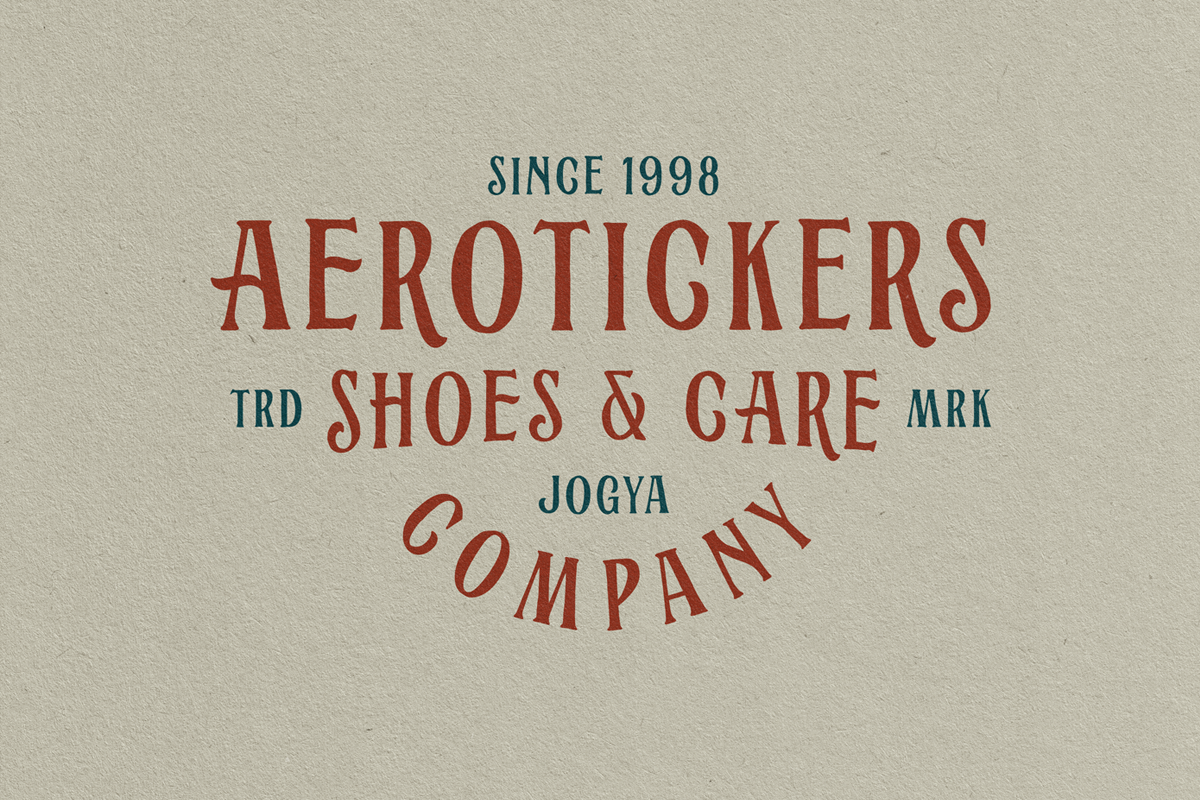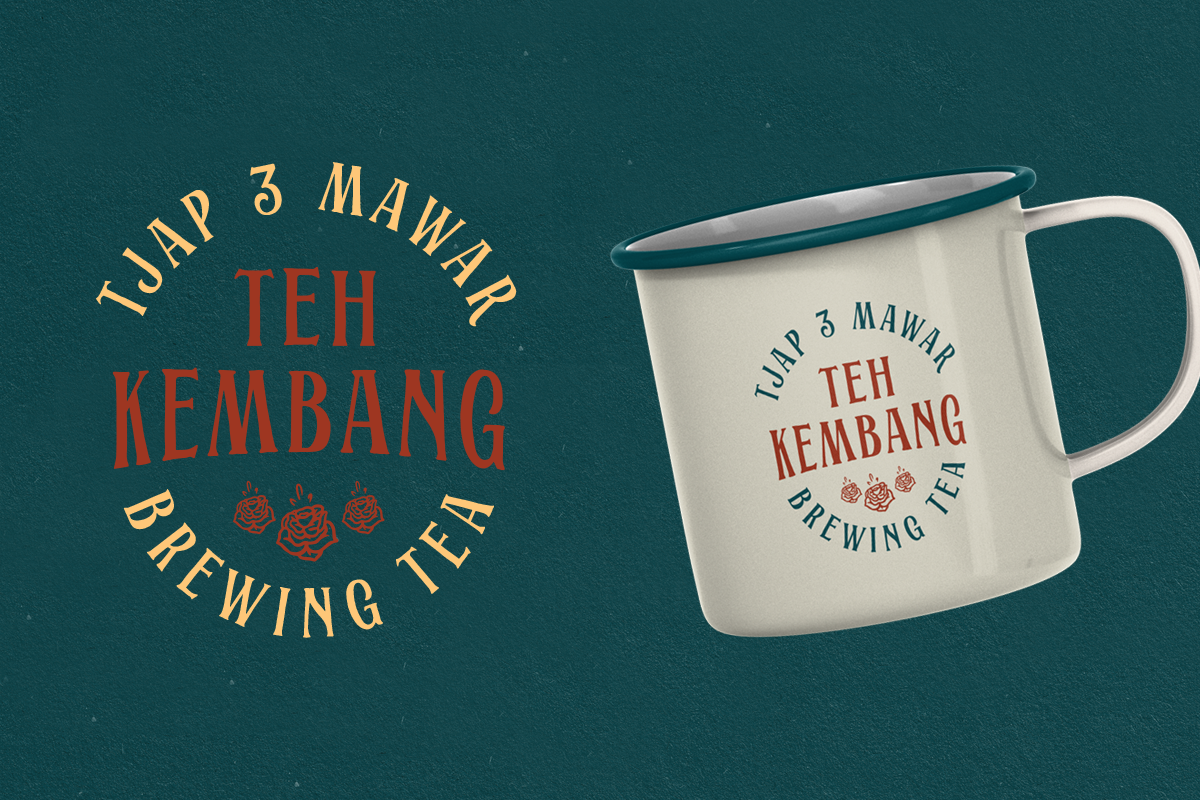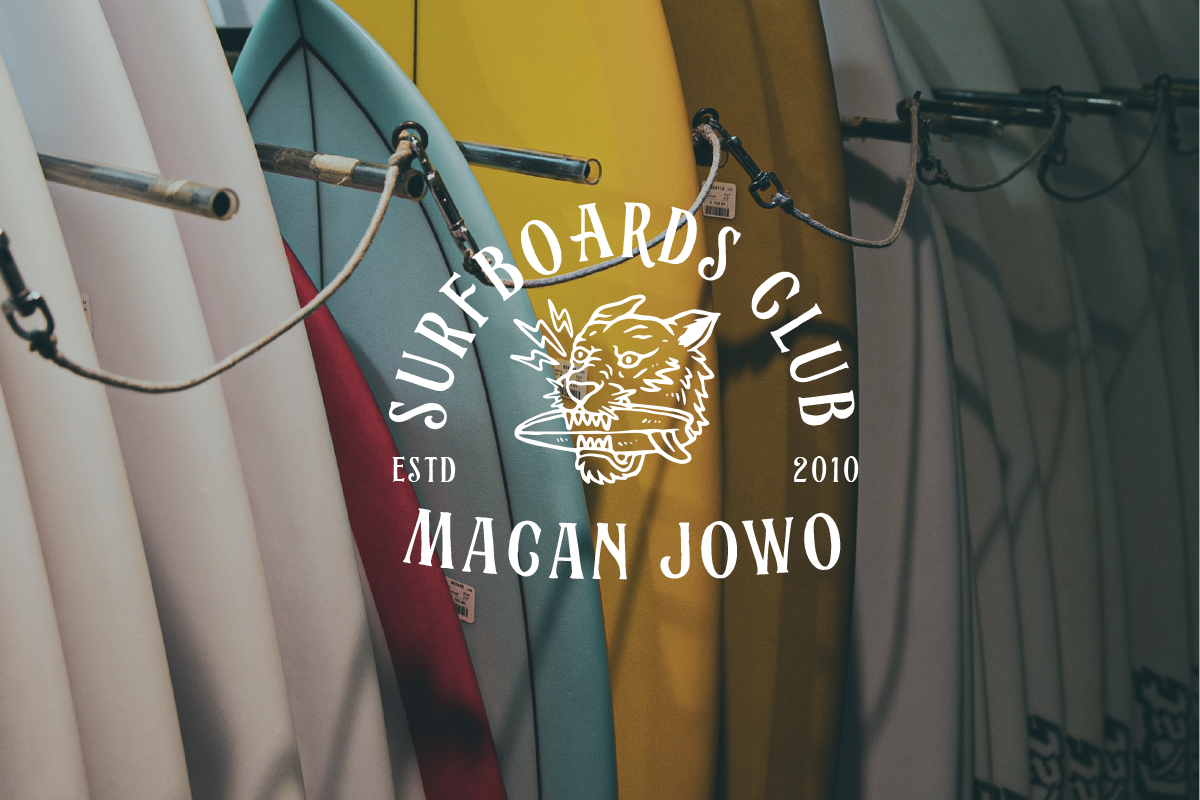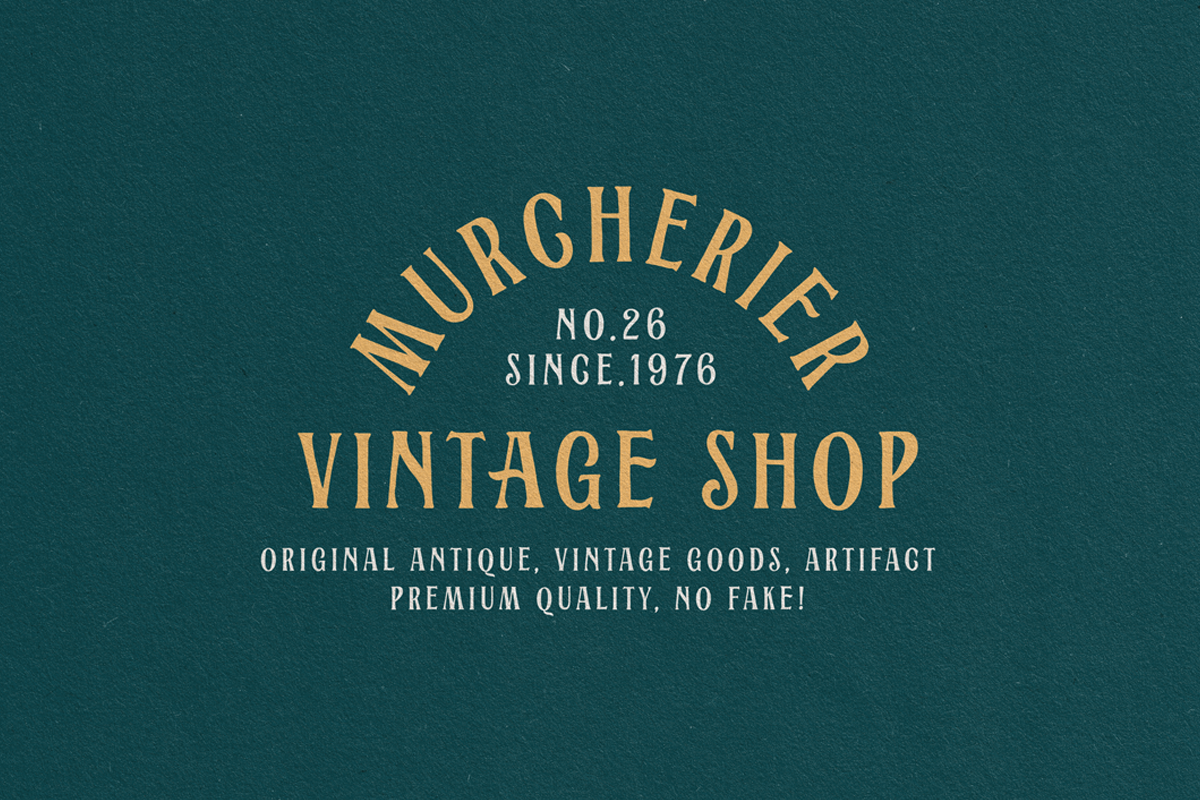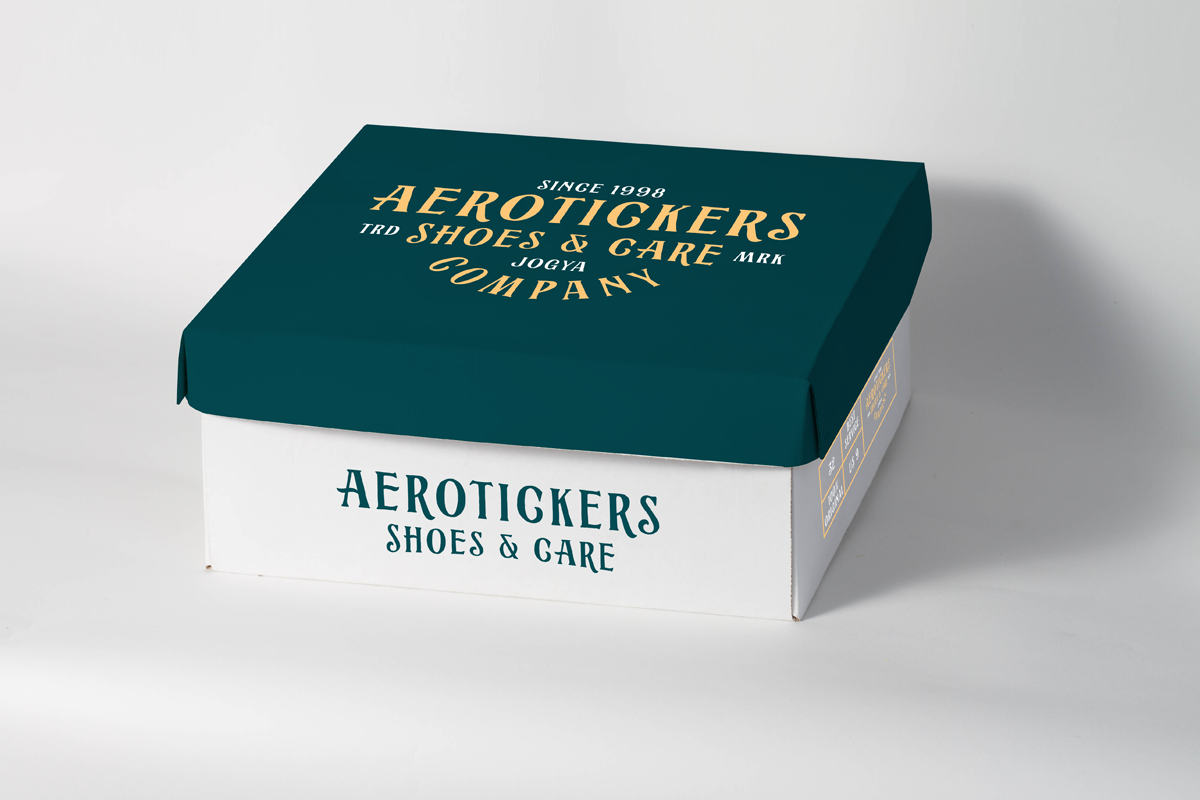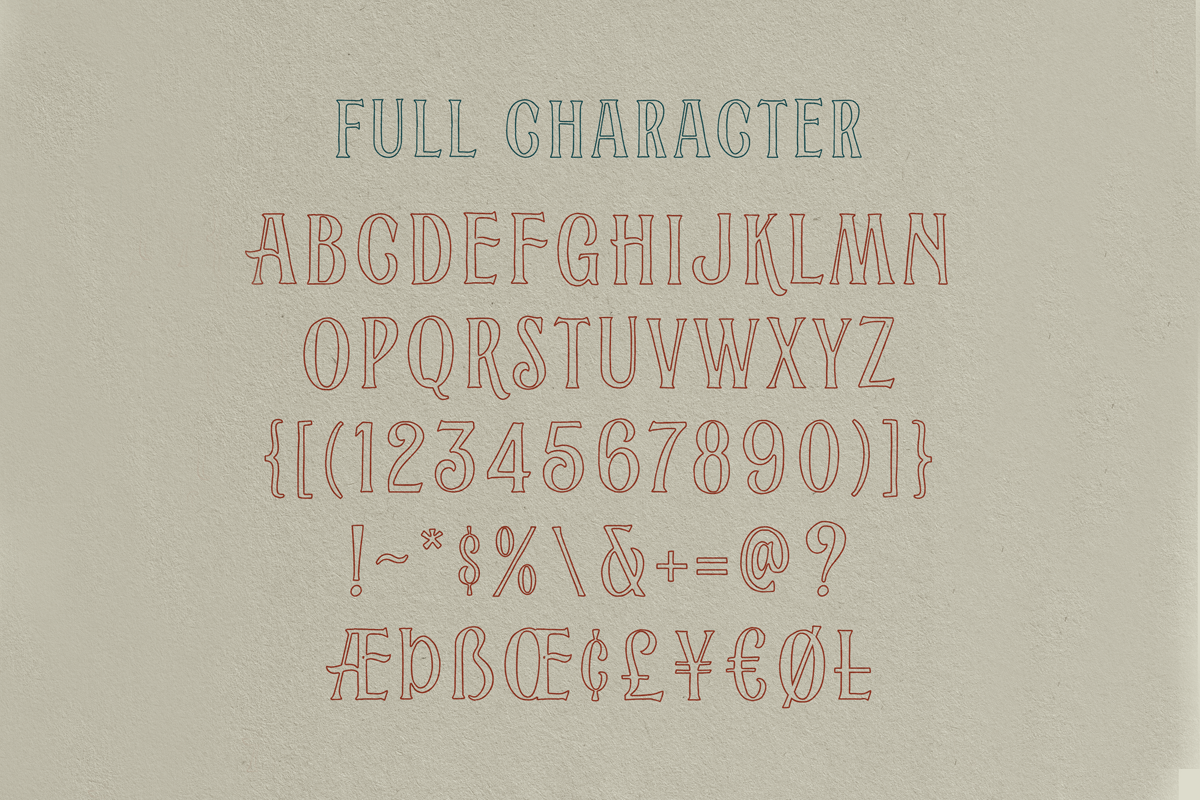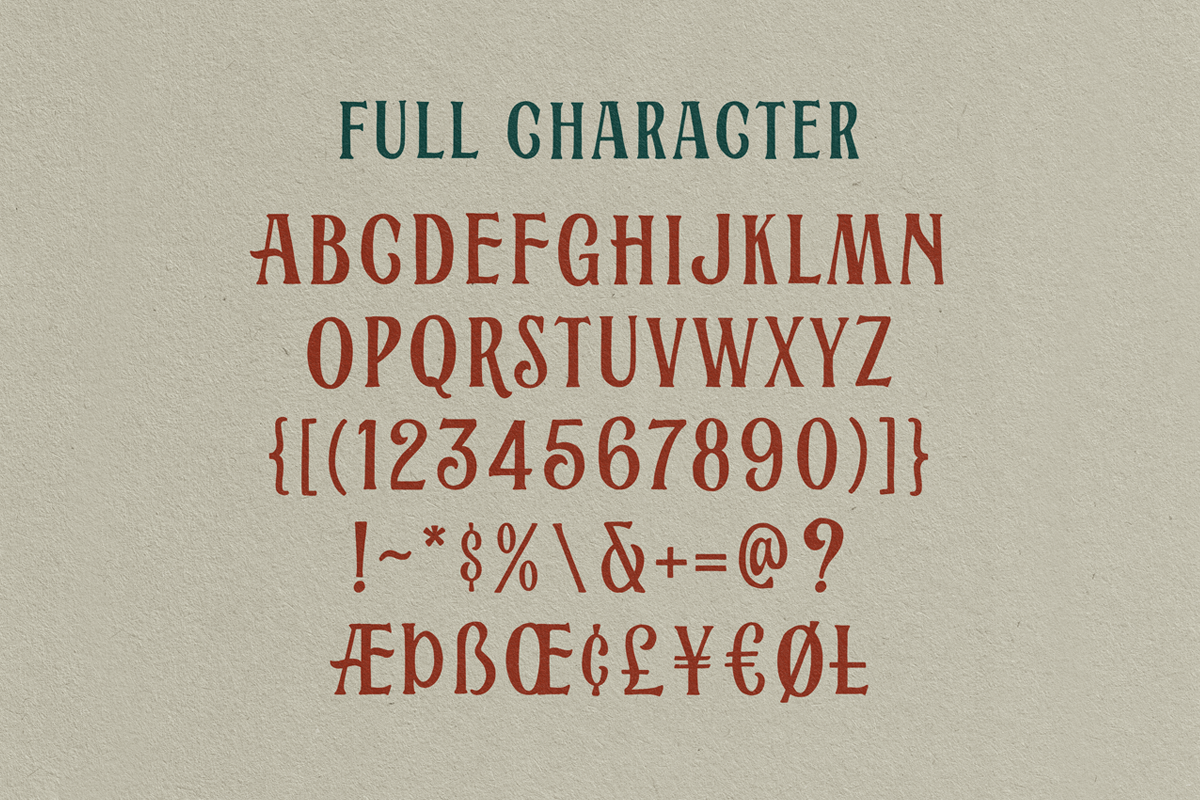
Alburgone - Display Typeface
Introducing, Alburgone. A hand lettering typeface with nostalgic look and feel! This font perfectly made to be applied especially in logo, and the other various formal forms such as invitations, labels, magazines, books, greeting / wedding cards, packaging, fashion, make up, stationery, novels, labels or any type of advertising purpose.
4 styles (Regular, Slanted, Outline Regular, Outline Slanted)
numbers and punctuation
- 4 styles (Regular, Slanted, Outline Regular, Outline Slanted)
- numbers and punctuation
- multilingual